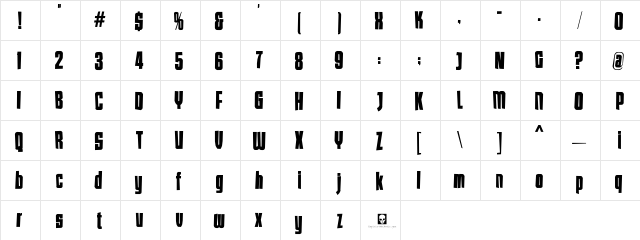
LHF Tallington Modern Regular
| Foundry | Arthur Vanson for Letterhead Fonts |
| Designer | Arthur Vanson |
Design Context for LHF Tallington Modern Typeface
LHF Tallington Modern takes a measured approach to typography — its balanced proportions and neutral character make it a reliable workhorse for both digital and print work.